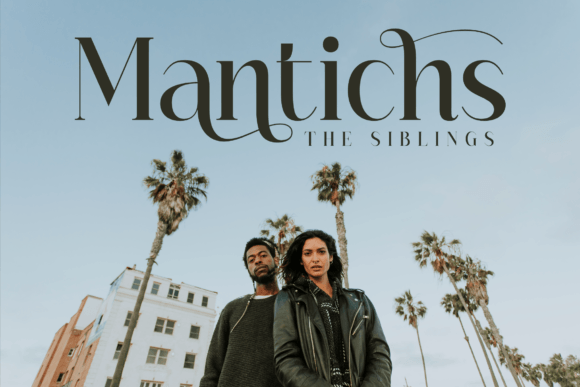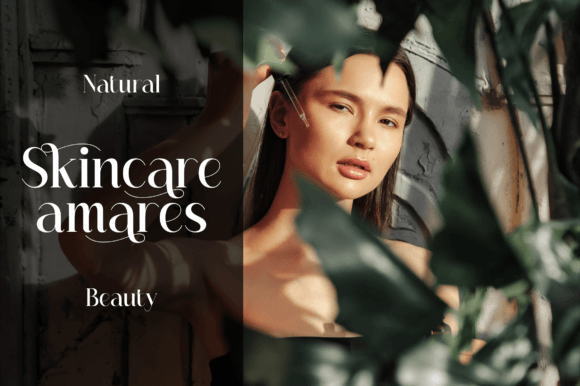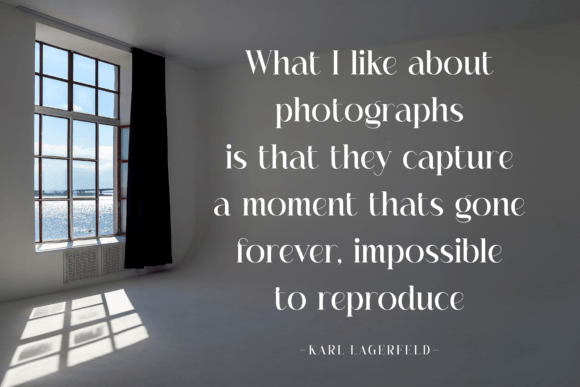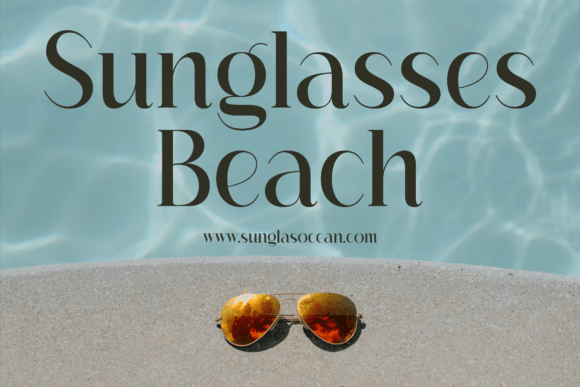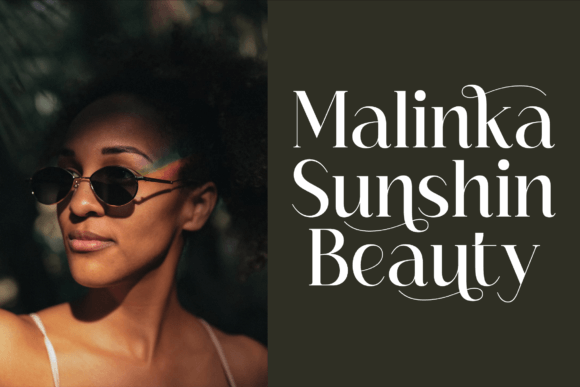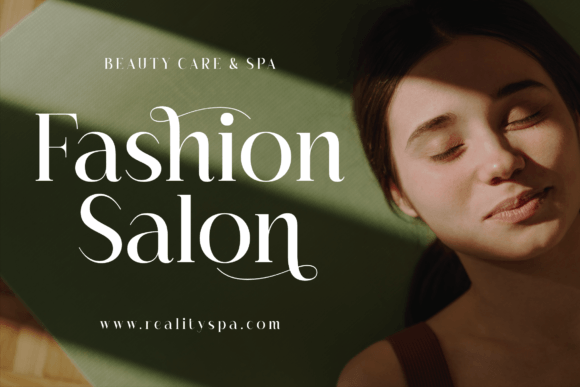
Hagmolya Font: Elevate Your Designs with Elegance and Sophistication
In the world of typography, fonts play a crucial role in conveying the tone and personality of a brand or design. For designers and crafters seeking to add a touch of luxury and sophistication to their work, the Hagmolya font is an excellent choice. This modern and stylish serif font boasts a unique appearance that sets it apart from other typefaces, making it perfect for a wide range of applications.
The Unique Charm of Hagmolya Font
Hagmolya is a modern serif font that exudes elegance and refinement. Its distinctive design features make it an ideal choice for creating stunning logos, branding materials, and visual content. The font’s unique appearance is characterized by its clean lines, precise curves, and balanced proportions, which come together to create a sense of harmony and sophistication.
Perfect for Luxury Brands and Elegant Designs
When it comes to creating a luxurious and high-end visual identity, the Hagmolya font is an excellent choice. Its elegant and refined design makes it perfect for:
- Elegant logos: Create a lasting impression with a custom logo that exudes sophistication and luxury.
- Fashion brands: Elevate your fashion brand with a stylish and modern font that speaks to your target audience.
- Magazines and editorials: Add a touch of elegance to your publications with a font that is both refined and readable.
- Apparel and merchandise: Create stunning apparel and merchandise with a font that is both stylish and versatile.
- Lettering and quotes: Add a touch of sophistication to your lettering and quotes with a font that is both elegant and refined.
Key Features of Hagmolya Font
The Hagmolya font boasts a range of key features that make it an excellent choice for designers and crafters. Some of its notable features include:
- Modern and stylish design: The Hagmolya font features a modern and stylish design that is perfect for creating elegant and sophisticated visual content.
- Unique appearance: The font’s unique appearance sets it apart from other typefaces, making it perfect for designers seeking to create something truly distinctive.
- Serif design: The Hagmolya font features a serif design that adds a touch of elegance and sophistication to any visual content.
- Highly legible: The font is highly legible, making it perfect for use in a wide range of applications, from body text to headings and titles.
Tips for Using Hagmolya Font
To get the most out of the Hagmolya font, here are some tips to keep in mind:
- Use it sparingly: The Hagmolya font is a statement font, so use it sparingly to create a lasting impression.
- Pair it with complementary fonts: Pair the Hagmolya font with complementary fonts to create a visually appealing contrast.
- Experiment with different sizes and colors: Experiment with different sizes and colors to find the perfect combination for your design.
In conclusion, the Hagmolya font is an excellent choice for designers and crafters seeking to add a touch of elegance and sophistication to their work. Its modern and stylish design, unique appearance, and highly legible features make it perfect for a wide range of applications. Whether you’re creating a luxurious logo, elegant branding materials, or stunning visual content, the Hagmolya font is sure to elevate your designs to the next level.